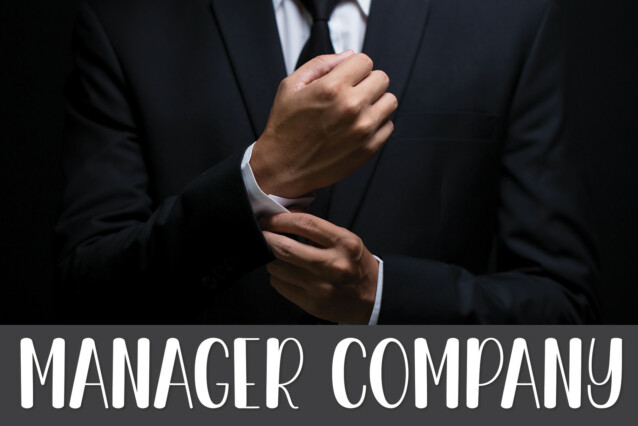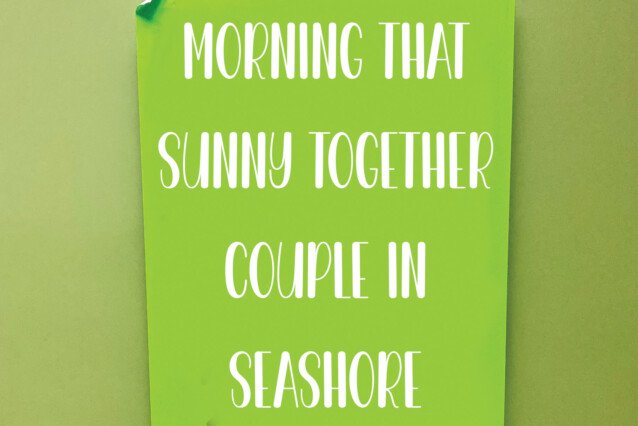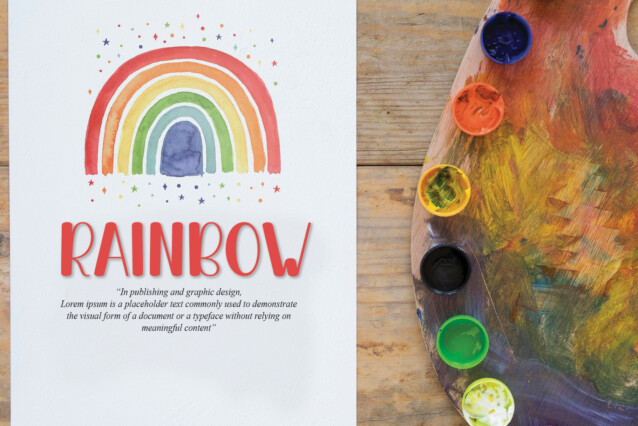
Clarisa Display Font
Clarisa Display Font is a fun and casual handwritten typeface with characters that dance along the baseline. It will add a unique spark to any design project that you wish to create!